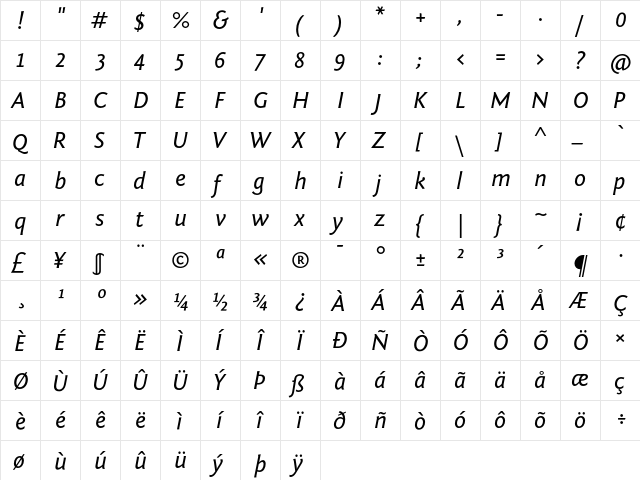
Fontin Sans Italic
| Foundry | Jos Buivenga |
Design Context for Fontin Sans Typeface
Fontin Sans offers clean, dependable letterforms without strong stylistic allegiance, making it a practical choice for designers who need flexibility. The slanted form adds forward momentum and visual energy.
Pro Tip: Try Fontin Sans for annotation and caption copy alongside an upright companion — the contrast in angle creates a dynamic but ordered typographic system.